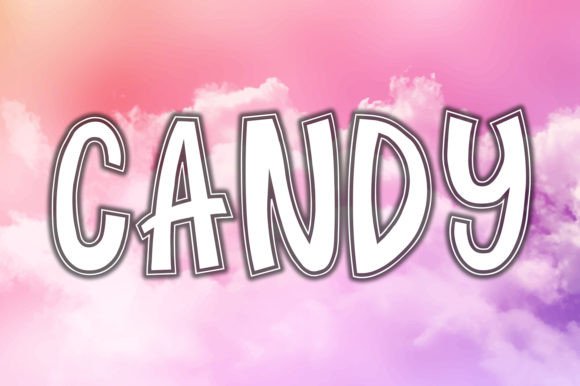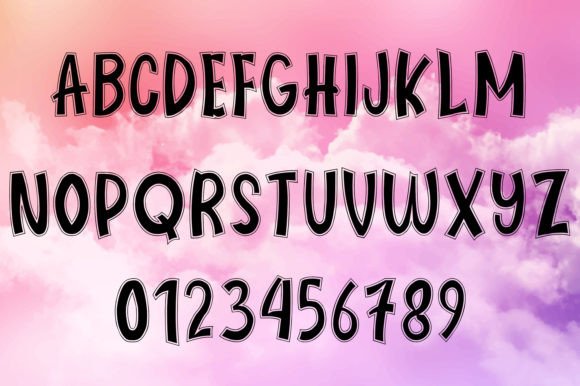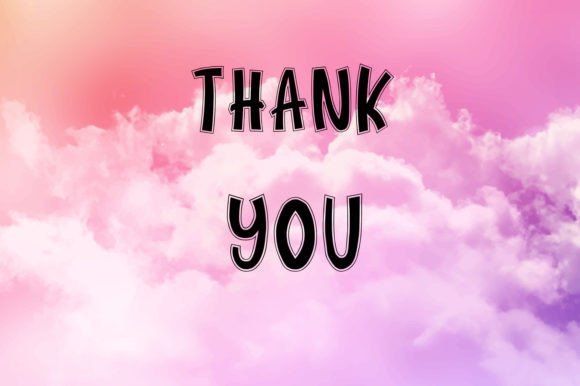
Candy Pizza Font: A Sweet Addition to Your Design Projects
Are you looking for a fun and quirky display font to add a touch of whimsy to your design projects? Look no further than the Candy Pizza Font! This delightful font is sure to bring a smile to your face and make your designs stand out from the crowd. In this article, we’ll take a closer look at the Candy Pizza Font, its features, and how you can use it to elevate your designs.
What is Candy Pizza Font?
Candy Pizza Font is a display font designed to resemble the colorful and playful world of candy and pizza. The font features bold, chunky letters with a fun and quirky feel that’s perfect for headlines, titles, and other display text. The font is highly legible, making it easy to read even at large sizes.
Key Features of Candy Pizza Font
• Fun and quirky design: The Candy Pizza Font features a unique and playful design that’s sure to grab attention.
• Bold and chunky letters: The font features bold, chunky letters that are perfect for headlines and display text.
• Highly legible: Despite its playful design, the Candy Pizza Font is highly legible, making it easy to read even at large sizes.
• Multilingual support: The font supports multiple languages, making it a great choice for designers working on international projects.
How to Use Candy Pizza Font in Your Design Projects
The Candy Pizza Font is a versatile font that can be used in a variety of design projects, including:
• Logos and branding: The font’s bold, playful design makes it perfect for logos and branding projects that need to stand out.
• Posters and flyers: The font’s large size and playful design make it perfect for posters and flyers that need to grab attention.
• Social media graphics: The font’s fun and quirky design makes it perfect for social media graphics, such as Facebook posts and Instagram stories.
• Crafting and DIY projects: The font’s playful design makes it perfect for crafting and DIY projects, such as scrapbooking and card making.
Tips for Using Candy Pizza Font
Here are a few tips for using the Candy Pizza Font in your design projects:
• Use it sparingly: The Candy Pizza Font is a bold font, so it’s best to use it sparingly to avoid overwhelming your design.
• Pair it with a simple font: Pair the Candy Pizza Font with a simple font, such as a sans-serif font, to create visual interest.
• Experiment with colors: The Candy Pizza Font looks great in bright, bold colors, so don’t be afraid to experiment with different colors.
The Candy Pizza Font is a fun and quirky display font that’s perfect for designers and crafters looking to add a touch of whimsy to their projects. With its bold, chunky letters and highly legible design, it’s perfect for headlines, titles, and other display text. Whether you’re working on a logo, poster, or social media graphic, the Candy Pizza Font is sure to bring a smile to your face and make your design stand out from the crowd. So why not give it a try and see the results for yourself?
Candy Pizza is a fun and quirky display font. Add it confidently to your projects and enjoy the results!